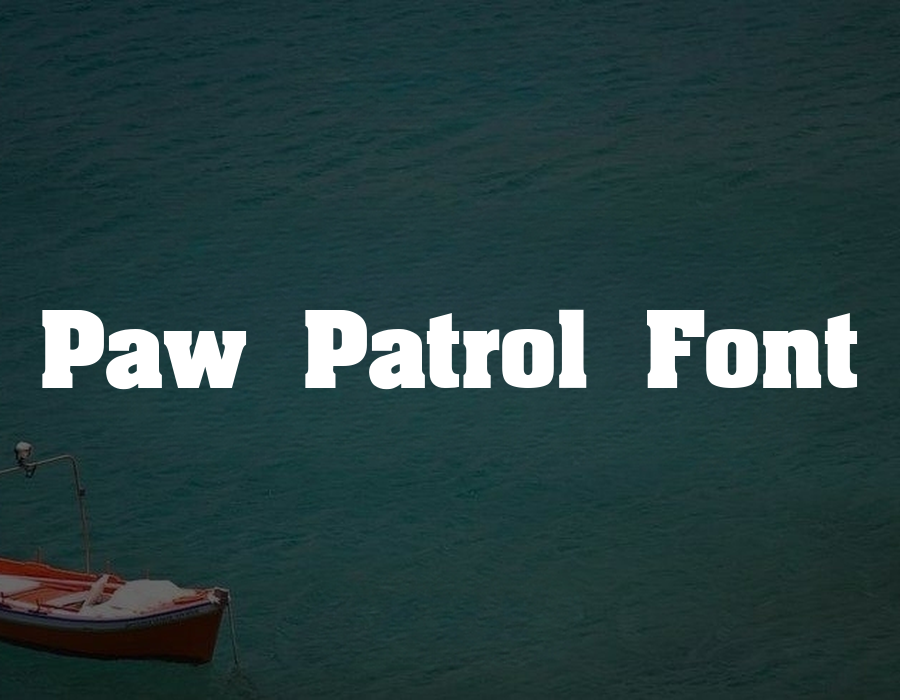
Paw Patrol font is a slab serif typeface that was designed after the famous television series Paw Petrol became noticeable many years ago. It is a Canadian television show that was released in 2013, and people couldn’t stop praising the series and the font used on the logo. It is said that the font logo and Paw Petrol font contain many similarities. The font used on the logo is Aachen font, a bold slab serif font.
Colin Brignall and Alan Meeks were the designers who designed the Aachen font. The Paw Petrol font comprises 2 separate fonts, and both are custom originated. Do you want to make something strange design and need an outlandish typeface then use it as a pair of Zimbra Font. Furthermore, you can design your own Paw Petrol font Logos and get facilitated with them free of cost by applying a commonly used Paw Patrol font Generator that doesn’t demand any requirement.
Usage of Paw Patrol Font
There are a lot of noted platforms that you can surely think about using this super amazing and bold typeface. This Slab font is an ideal choice for Logos. It has a long family of weights and styles, so you can easily go ahead with this typeface in different criteria. If you need a playful typeface that has a pairing personality and can fit with this typeface then try Playfair Display Font.
Furthermore, you can also get a few similar fonts that you can go along with within a few designs, including the Aachen font. It is a perfect font that depicts your emotions and hidden messages, so you can use it in this way. With time, the family of Paw Patrol keeps extending due to extreme popularity. One of the popular weights of this font is the Grobold font.
Name | Paw Patrol Font |
Style | Slab Serif |
Designer | Alan Meeks & Colin Brignall |
Paw Patrol Font Family (Includes 3 Typeface)
- Aachen Medium
- Aachen Pro Bold
- Aachen Grobold
What Type of Font Is Paw Patrol Font?
It is a slab serif typeface that increases the readability and legibility score. It is a custom-designed typeface that came on the surface after the popularity of the famous Canadian television series Paw and Petrol.
Which Font Is Used in Paw Petrol Series?
Aachen font was used in the logo of that series, after which it became popular among many designers.